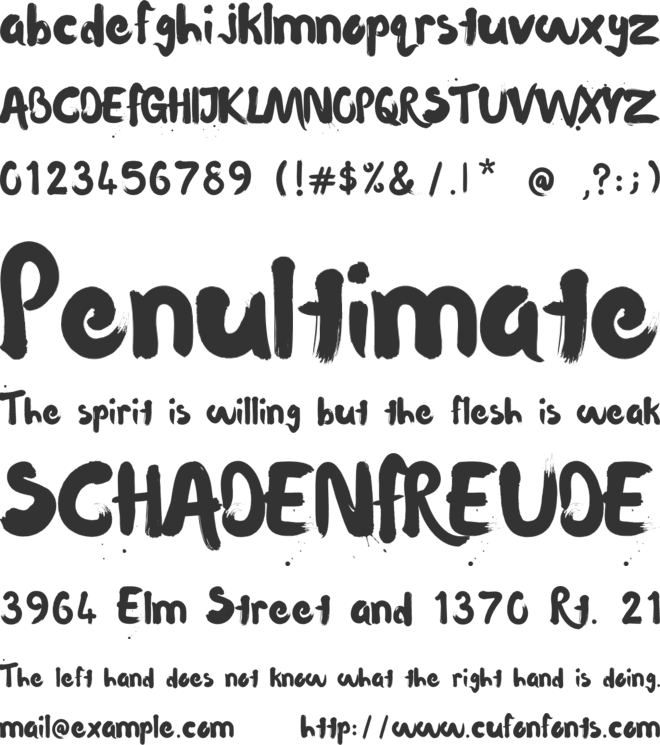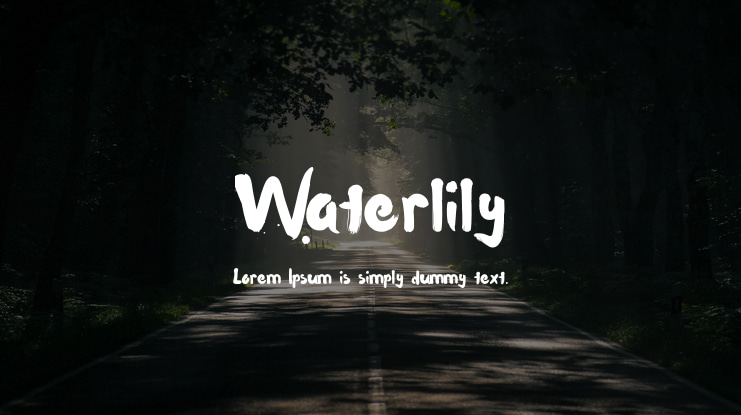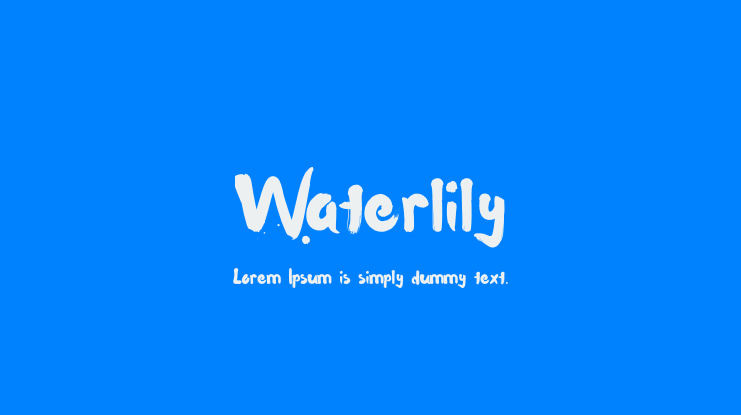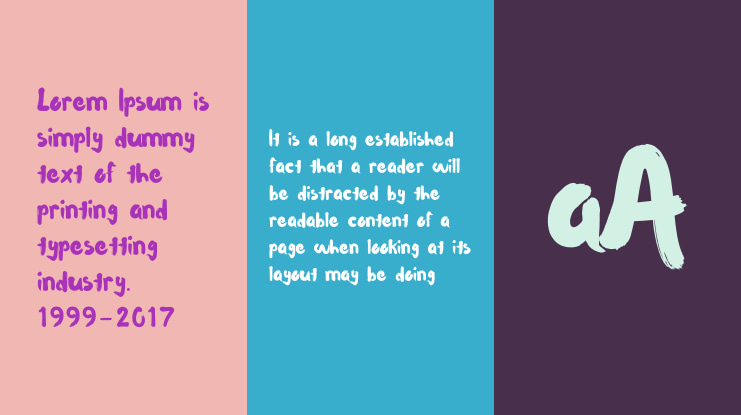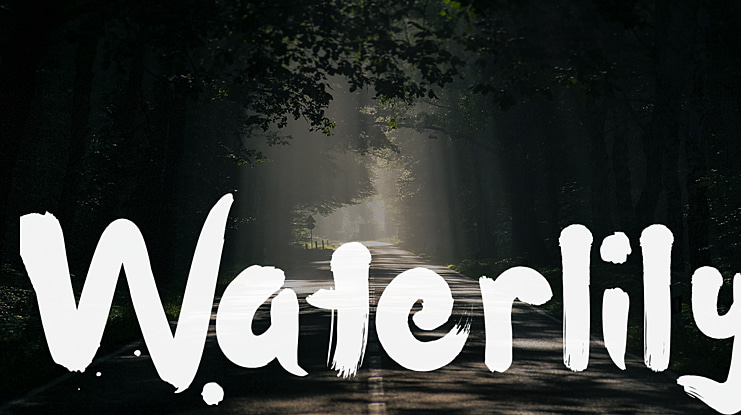
Waterlily Font
Waterlily is a new hand written font for 2015. Including over 80 different hand drawn characters for a range of languages and dialects. For commercial use you may purchase a commercial license (https://creativemarket.com/Maroonbaboon/178975-Waterlily-Typeface). Brought to you by TheHungryJPEG.com, (http://TheHungryJPEG.com,) a network of free & premium design resources.